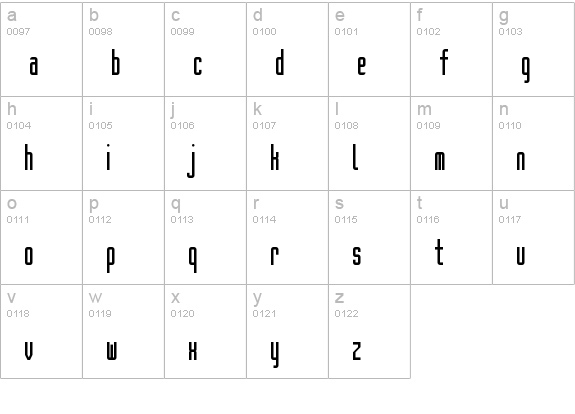
Brighton Sans NBP font is a modern and versatile typeface that combines clean lines with a touch of elegance. Its sleek and stylish design makes it suitable for a wide range of projects, from branding and logo design to web and print materials. This font features a balanced and harmonious character set, with well-crafted letterforms that are both legible and visually appealing. The rounded edges give it a friendly and approachable feel, while the slightly condensed proportions make it space-efficient and perfect for small text sizes. With its extensive language support and a variety of weights and styles, Brighton Sans NBP font offers endless possibilities for creative typography. Whether you need a bold headline or a subtle caption, this font has got you covered. One of the best things about Brighton Sans NBP font is that it is free to download. Yes, you heard that right! You can freely access and use this amazing font for your personal and commercial projects. Simply head over to FontsMarket.com and grab your copy today. Don't miss out on the opportunity to add this versatile and stylish font to your collection. Download Brighton Sans NBP font now and let your creativity soar!